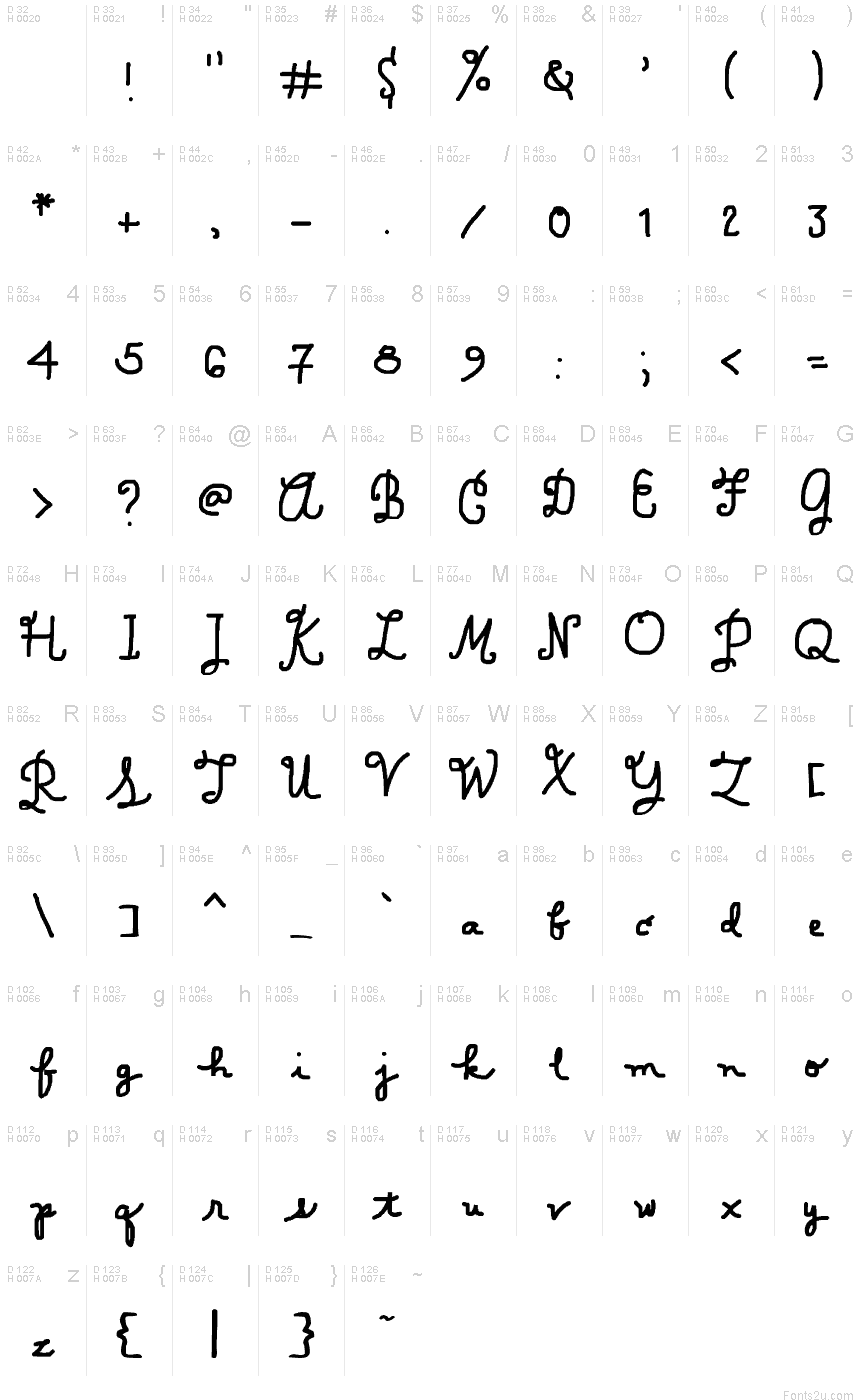
Scription
Scription is a free handwritten font with tall, looping capitals and a lively signature-like sweep. Its strokes shift from broad curves to tight knots. The uneven joins and changing letter sizes keep the writing personal and quick.
On packaging, the lettering can turn a product name into a hand-signed mark, especially for boutique food, cosmetics, or gifts. It also suits invitations and music artwork, where the long loops bring movement to text. Across these uses, the loose baseline and oversized flourishes supply the sense of an individual hand.